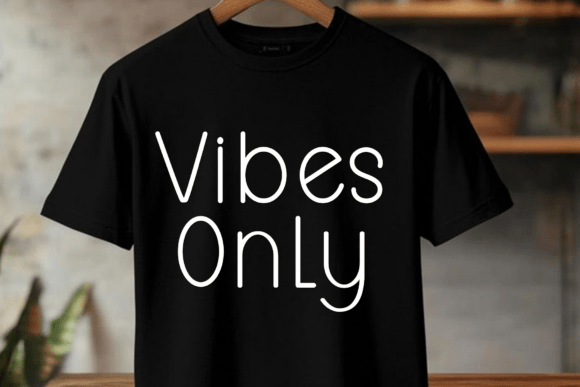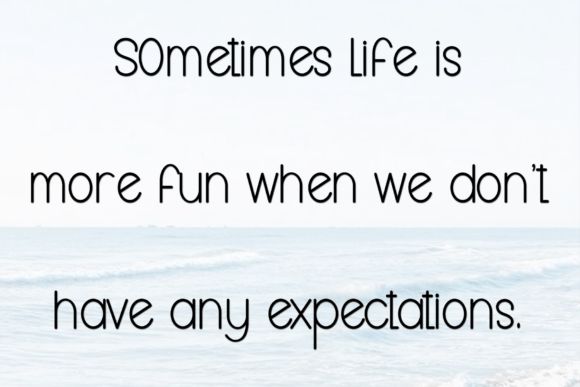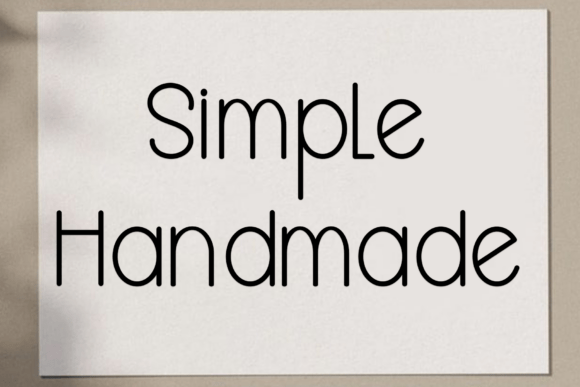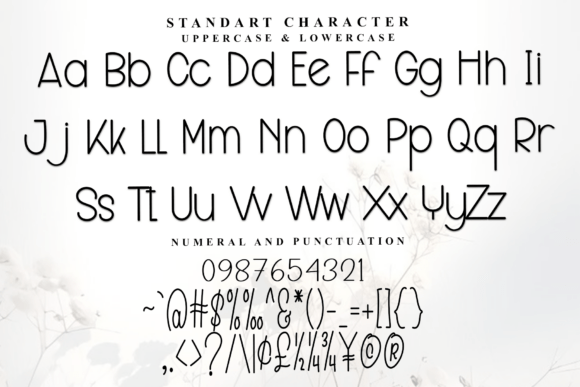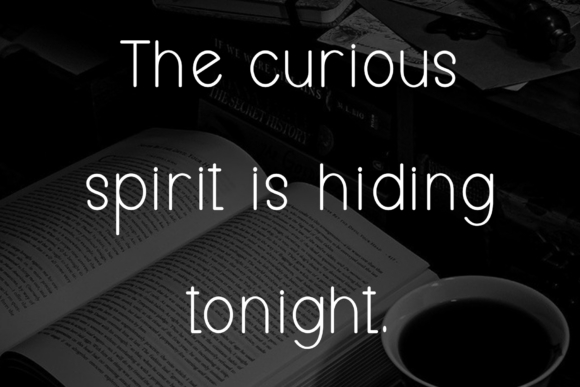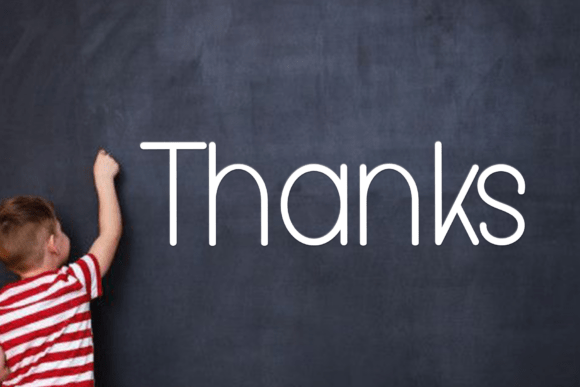
Biscuits Font: A Sweet and Friendly Addition to Your Design Collection
Are you tired of using the same old fonts in your designs? Look no further than Biscuits Font, a sweet and friendly typeface that’s sure to add a touch of warmth and personality to your projects. With its natural and unique style, Biscuits Font is incredibly versatile and can be used in a wide range of designs, from baking and food blogs to craft and DIY websites.
The Charm of Biscuits Font
Biscuits Font is a one-of-a-kind typeface that’s sure to capture the hearts of designers and crafters alike. Its sweet and friendly style is reminiscent of homemade treats and cozy afternoons spent in the kitchen. The font’s natural and unique aesthetic makes it perfect for designs that require a personal touch, such as:
- Baking and food blogs
- Craft and DIY websites
- Recipe cards and cookbooks
- Branding and packaging for food and craft businesses
- Invitations and party decorations
What Makes Biscuits Font So Special?
So, what sets Biscuits Font apart from other fonts on the market? Here are just a few features that make it a standout:
- Unique and hand-crafted design: Biscuits Font is a carefully crafted typeface that’s been designed to evoke the warmth and personality of handwritten text.
- Natural and earthy feel: The font’s natural and earthy aesthetic makes it perfect for designs that require a organic and homespun feel.
- Highly legible: Despite its unique style, Biscuits Font is highly legible and easy to read, making it perfect for body text and headings.
- Versatile and adaptable: Biscuits Font can be used in a wide range of designs, from digital projects to print materials.
How to Use Biscuits Font in Your Designs
One of the best things about Biscuits Font is its versatility. Here are just a few ideas for how you can use it in your designs:
- Pair it with bold colors and playful graphics: Biscuits Font looks amazing paired with bold colors and playful graphics, making it perfect for designs that require a fun and whimsical touch.
- Use it for headings and titles: The font’s unique style makes it perfect for headings and titles, where it can add a touch of personality and flair to your designs.
- Mix it with other fonts: Biscuits Font can be paired with a wide range of other fonts to create interesting and dynamic typography.
Get Creative with Biscuits Font
The only limit to what you can do with Biscuits Font is your imagination! Whether you’re a designer, crafter, or DIY enthusiast, this sweet and friendly font is sure to inspire you to create something amazing. So why not give it a try and see what you can come up with?
With Biscuits Font, you can:
- Create beautiful and eye-catching designs that stand out from the crowd
- Add a touch of warmth and personality to your projects
- Experiment with new and creative ways to use typography in your designs
In conclusion, Biscuits Font is a sweet and friendly typeface that’s perfect for designers and crafters who want to add a touch of warmth and personality to their projects. With its natural and unique style, Biscuits Font is incredibly versatile and can be used in a wide range of designs. So why not give it a try and see what amazing things you can create?